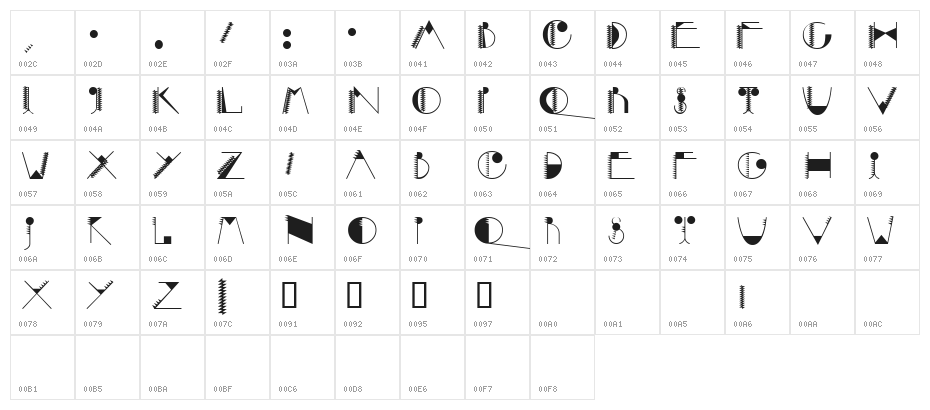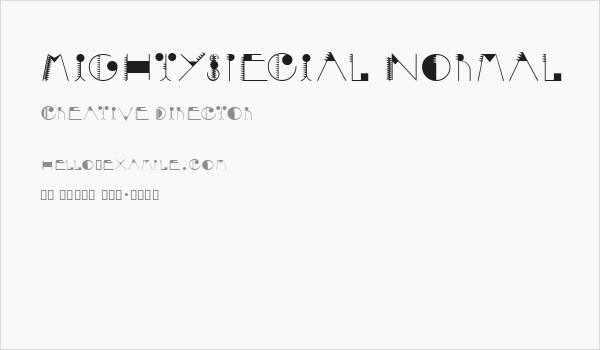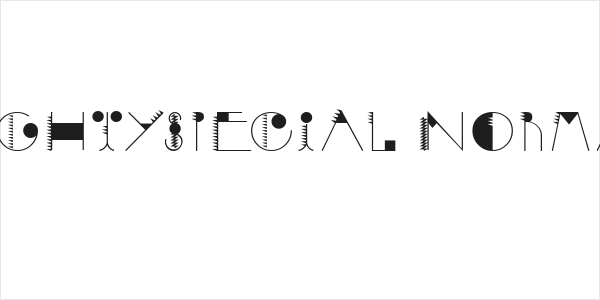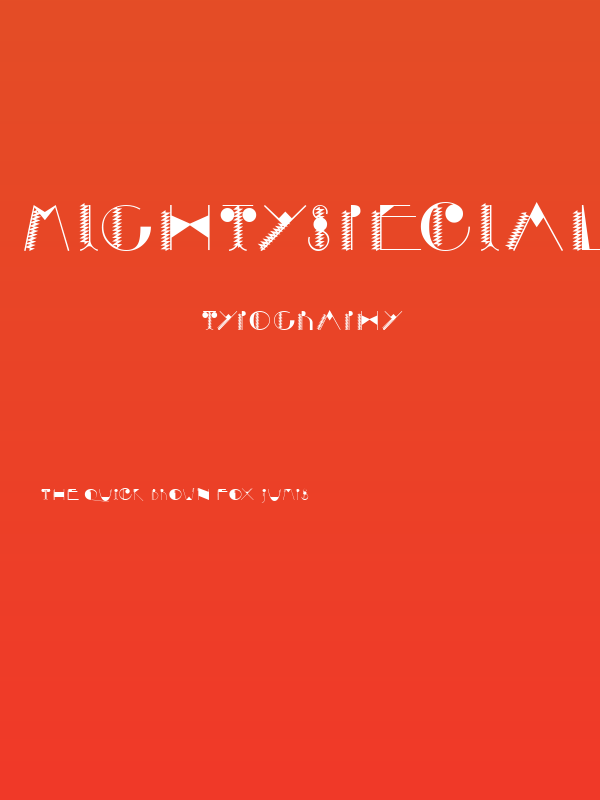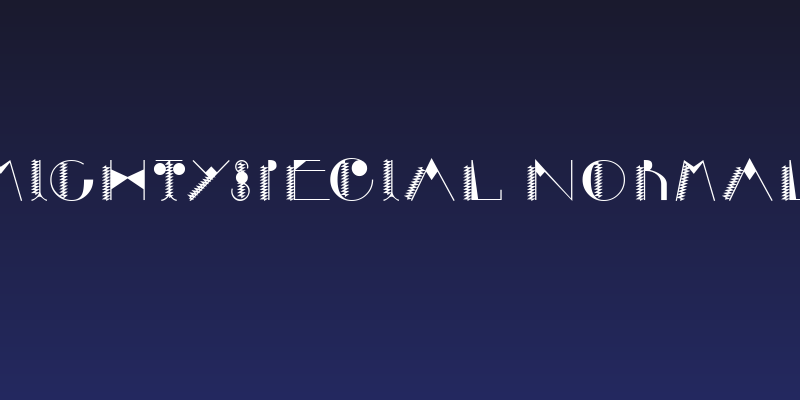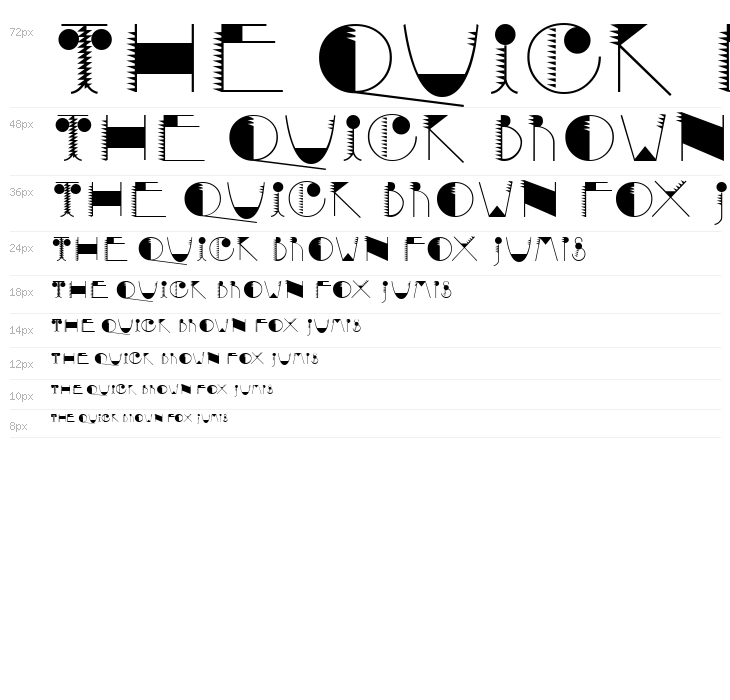
MightySpecial Normal Font
MightySpecial Normal Description
This font features a unique and striking design, characterized by its bold, geometric shapes and high contrast between thick and thin strokes. The uppercase letters are particularly distinctive, with sharp angles and a playful use of negative space that creates a dynamic visual effect. The lowercase letters maintain this bold style, offering a cohesive look across the alphabet. The numerals are presented in a boxy, almost monospaced style, adding to the font's modern and edgy appearance. Special characters are creatively designed, incorporating elements of the main alphabet's style. Overall, this font stands out with its decorative and avant-garde aesthetic, making it ideal for eye-catching designs.